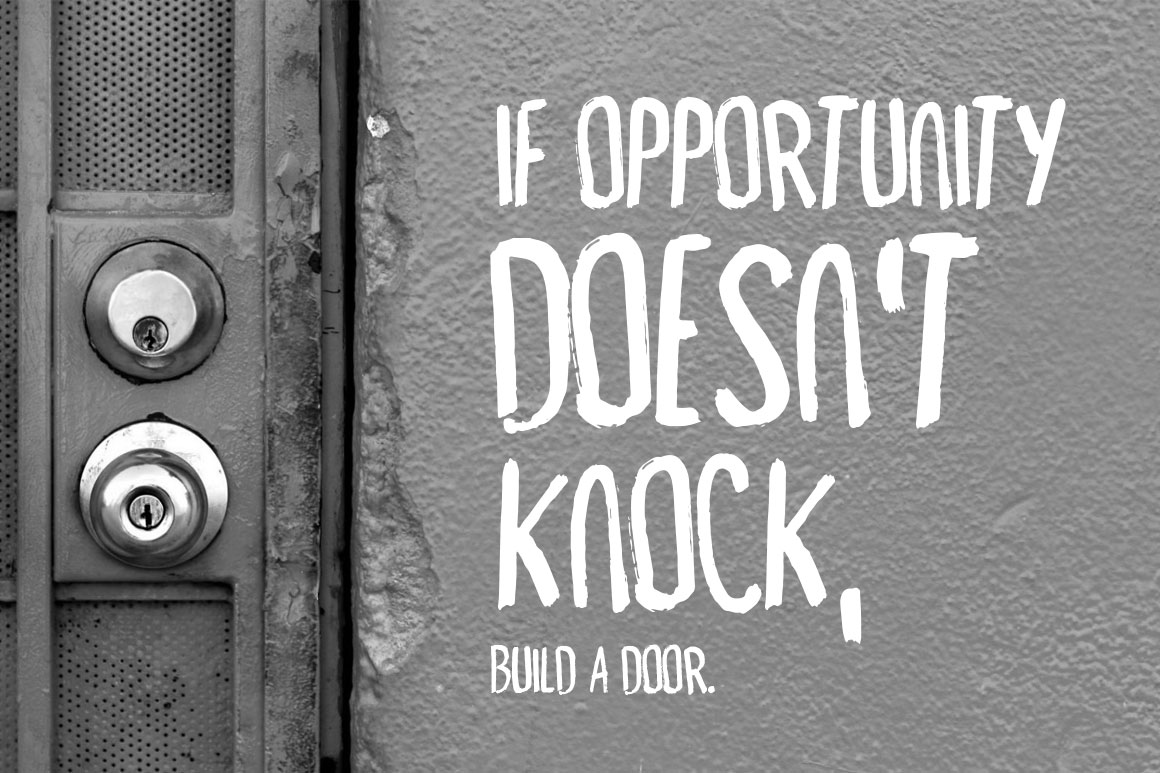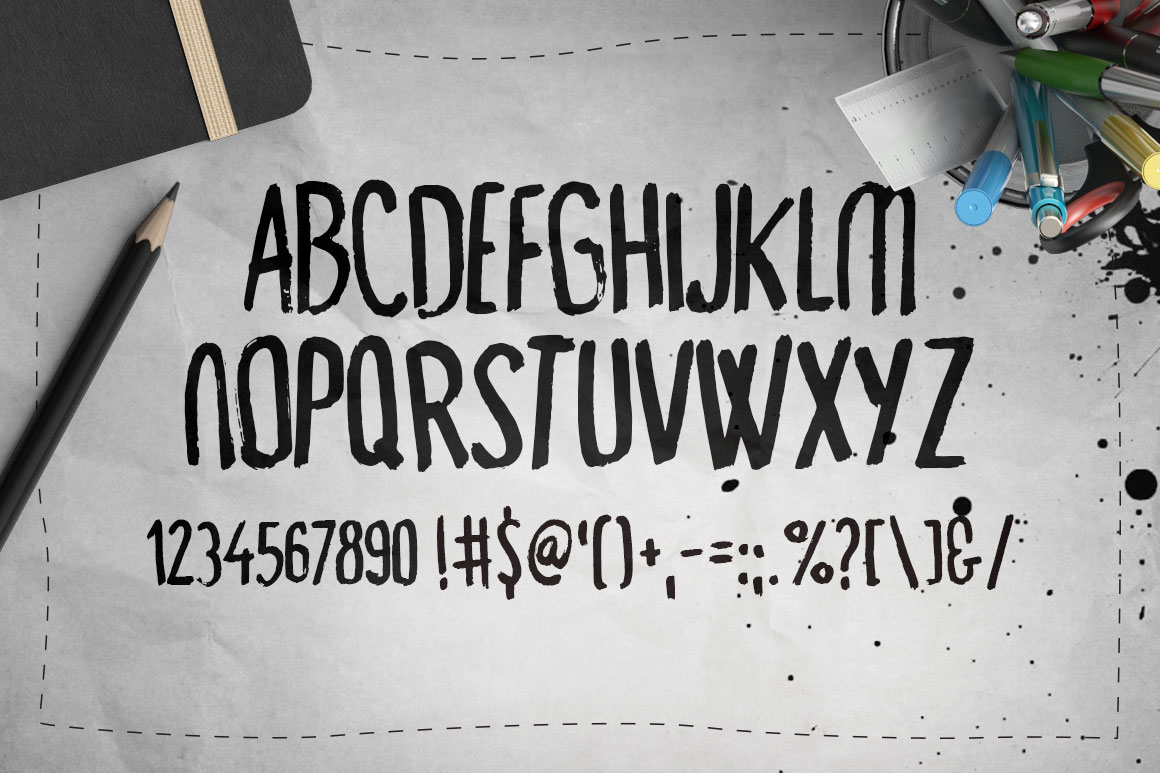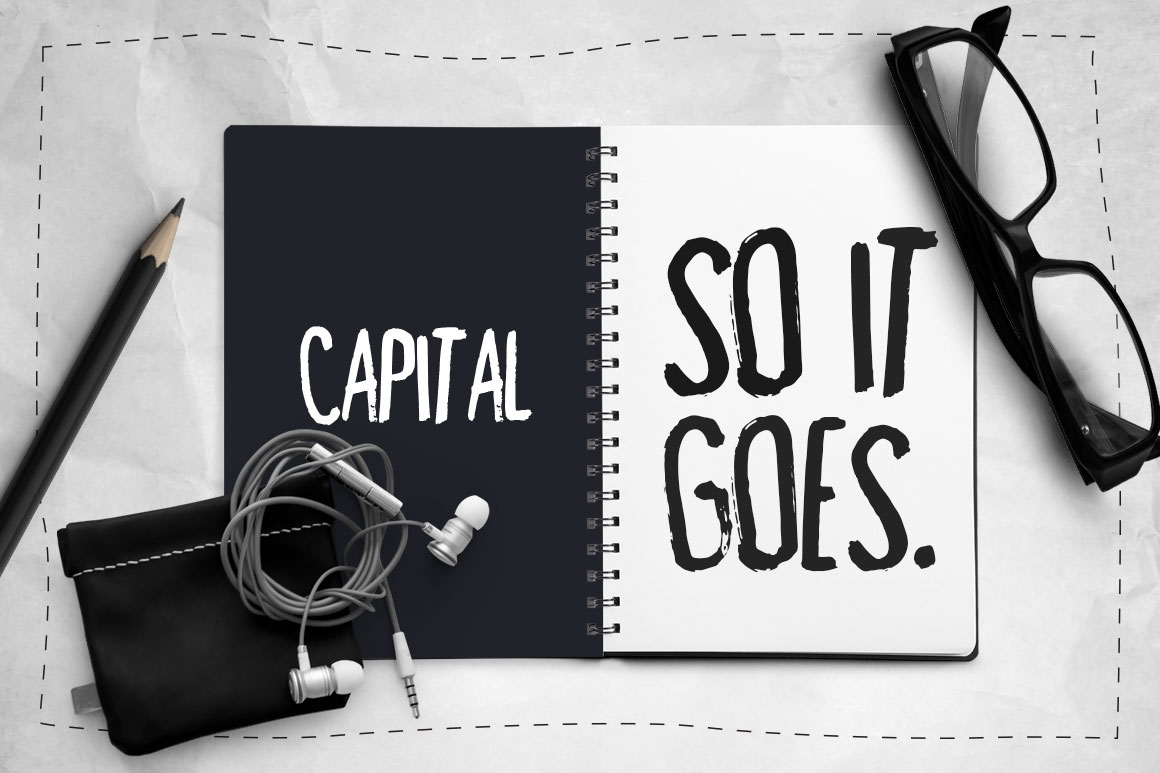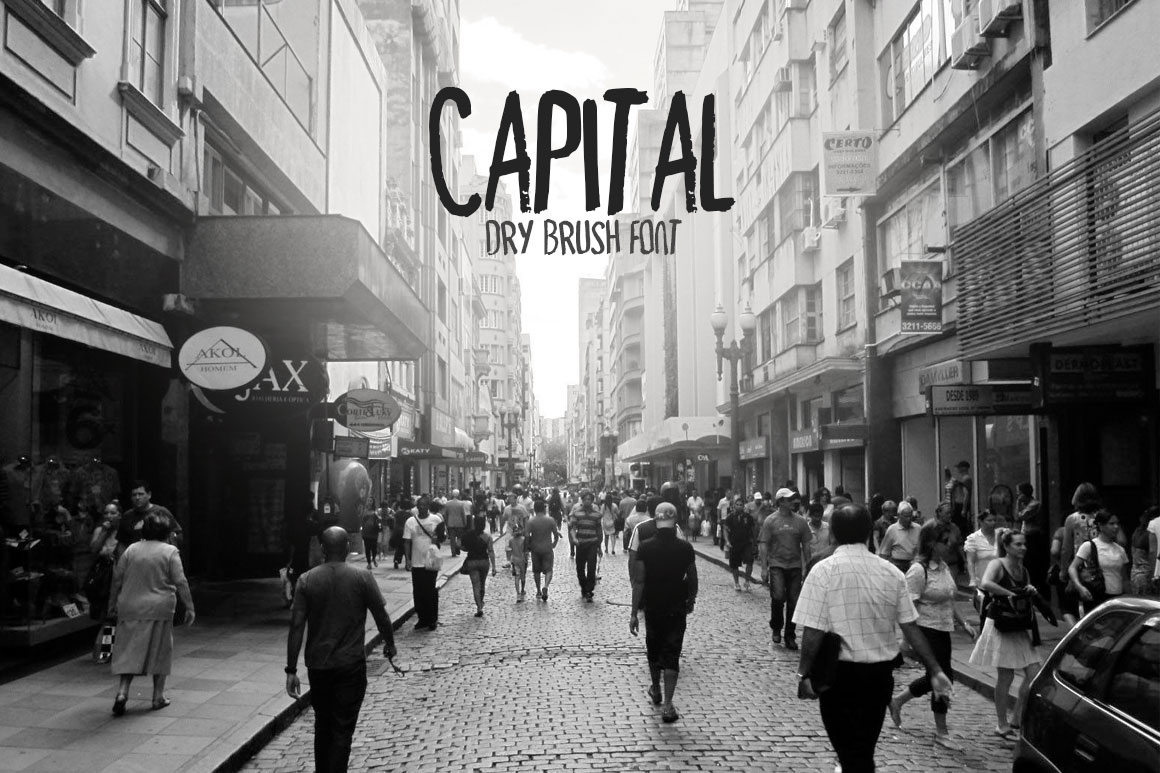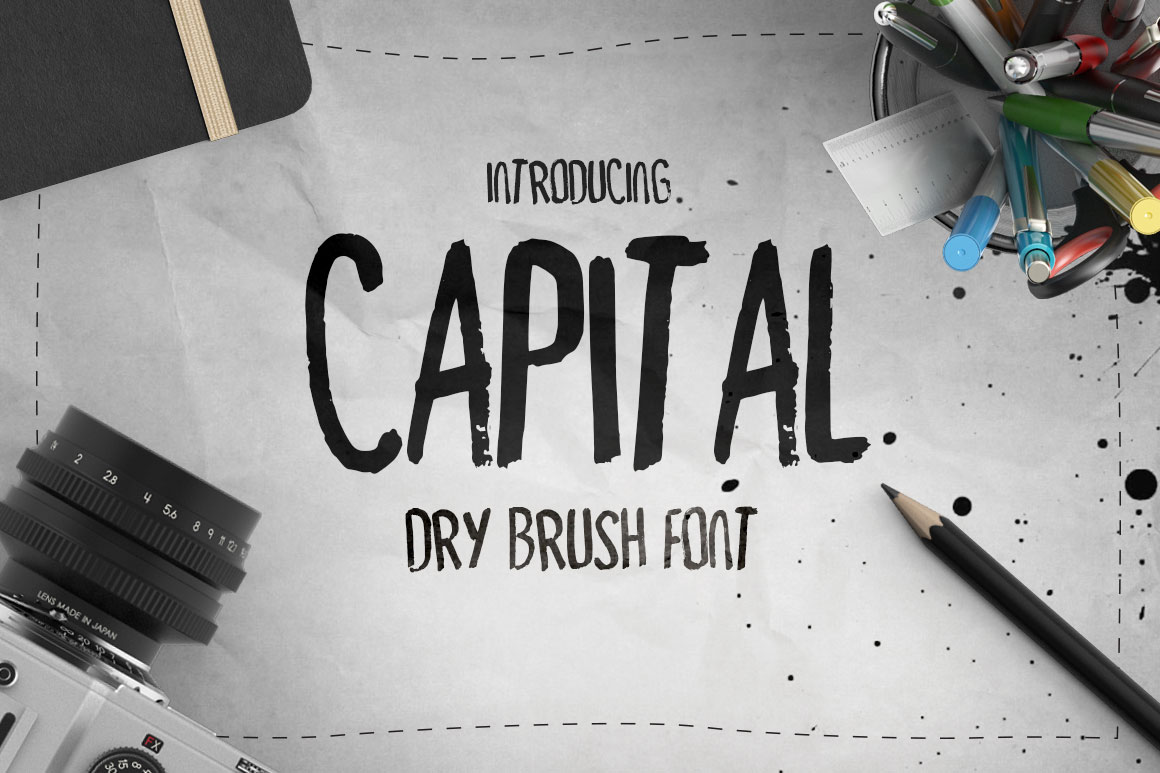
The Hunt for the Perfect Font: How Capital Dry Brush Stole My Heart
I’ll never forget the design project that led me to Capital Dry Brush Font. I was working on a branding project for a crafty client, and I was struggling to find the perfect font to capture the handmade, DIY vibe they wanted to convey. Hours of scrolling through font libraries and marketplaces yielded nothing but disappointment – until I stumbled upon Capital Dry Brush.
Created by DesignSomething, Capital Dry Brush is a beautiful, strong display font that instantly resonated with me. The font was created completely by hand using a dry permanent marker, giving it a unique, organic feel that’s perfect for crafty, artistic projects.
An Honest Review: What I Love (and What Could Be Better)
- ✅ Unique, handmade feel that’s perfect for crafty, artistic projects
- ✅ Strong, bold lines that make a statement
- ✅ Easy to read, even in larger sizes
- ✅ Works well for titles, headings, and short paragraphs
- ⚠️ Limited use for body text – it’s a display font, after all!
- ⚠️ Some characters may appear a bit inconsistent due to the handmade process
A Practical Guide: Using Capital Dry Brush in Your Design Workflow
- Experiment with OpenType features, like glyphs and stylistic alternates, to add some personality to your text
The Story Behind Capital Dry Brush: Designer Inspiration
According to DesignSomething, Capital Dry Brush was created as a labor of love. The designer, fueled by a passion for hand-lettering and a love for dry markers, spent hours perfecting the font. The result is a beautiful, one-of-a-kind font that’s perfect for crafty, artistic projects.
| Font Name | Capital Dry Brush Font |
| Author | DesignSomething |
Q: What type of projects is Capital Dry Brush best suited for?
A: Capital Dry Brush is perfect for crafty, artistic projects that require a strong, bold font. It’s ideal for titles, headings, and short paragraphs.
Q: Can I use Capital Dry Brush for body text?
A: While Capital Dry Brush is a beautiful font, it’s not ideal for body text. It’s a display font, best suited for titles, headings, and short paragraphs.
Q: Is Capital Dry Brush easy to read?
A: Yes, Capital Dry Brush is surprisingly easy to read, even in larger sizes. However, it’s still a display font, so use it judiciously.